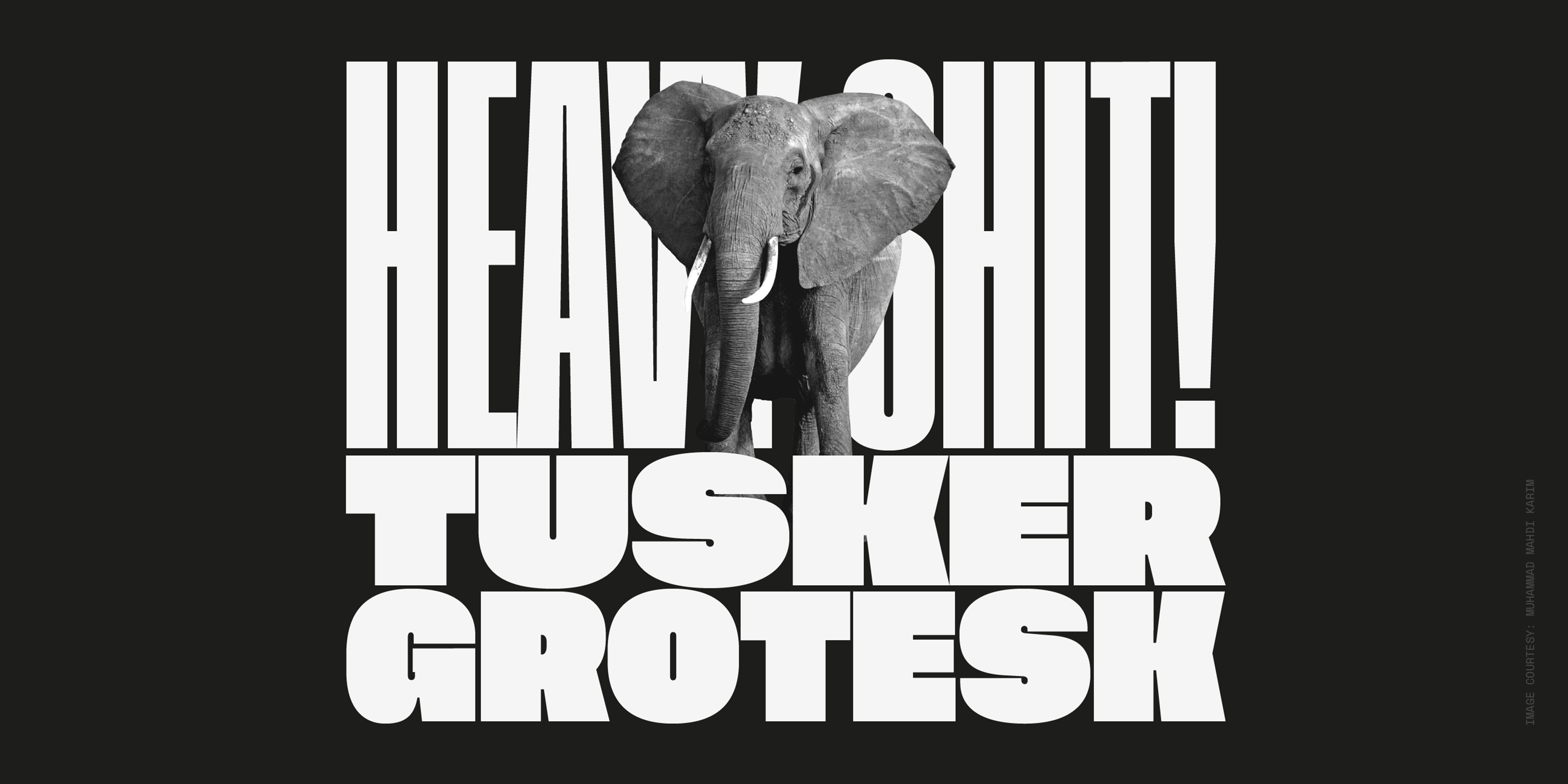
Tusker Grotesk Font is perfect for bold headlines, impactful posters, brand identities, magazine mastheads, packaging design, digital advertising, sports graphics, and contemporary editorial layouts.
What makes Tusker Grotesk Font exciting is its commanding presence and distinctive character that combines classic grotesk traditions with modern boldness. This striking typeface features condensed proportions and robust letterforms that maximize visual impact while maintaining exceptional legibility, making it ideal for designs that need to grab attention and communicate with authority.
The Tusker Grotesk Font family includes multiple weights from Light to Black, featuring both standard and condensed versions, each offering powerful display capabilities while preserving the typeface's characteristic strength and contemporary edge.
Tusker Grotesk Font Free Download provides access to a premium display typeface that dominates visual hierarchies with confidence. This bold sans-serif font delivers exceptional performance in large-scale applications where impact is essential, combining Germanic grotesk heritage with contemporary design sensibilities. The font's condensed structure allows for efficient use of space while its robust construction ensures readability across all media formats. Whether creating powerful brand campaigns, editorial spreads, or promotional materials, this font commands attention with its authoritative presence and professional craftsmanship. Its versatile weight range enables designers to create dynamic typographic systems that maintain consistency while offering flexibility for various design applications and communication needs.